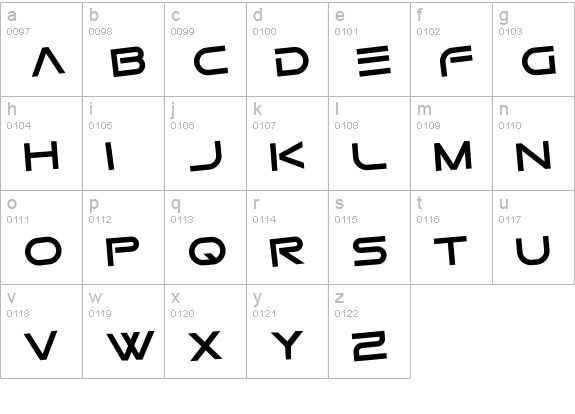
Introducing Gtek Nova Font, a breathtaking typeface that combines modern elegance with a touch of futuristic flair. This font is the perfect choice for those seeking a bold and sleek design, whether it's for a logo, branding materials, or a striking headline. With its clean lines and sharp edges, Gtek Nova Font exudes a sense of confidence and sophistication. Its unique letterforms are carefully crafted to ensure legibility, making it ideal for both print and digital applications. Whether used in large or small sizes, this font commands attention and leaves a lasting impression. One of the most remarkable aspects of Gtek Nova Font is that it is completely free. Yes, you read that right! This exceptional typeface is freely available to download at FontsMarket.com. Now, you can elevate your design projects without breaking the bank. So why wait? Take advantage of this incredible opportunity to enhance your designs with Gtek Nova Font. Whether you're a professional graphic designer or an aspiring creative, this font is sure to become your go-to choice. Download it today and experience the power and versatility of Gtek Nova Font for yourself.